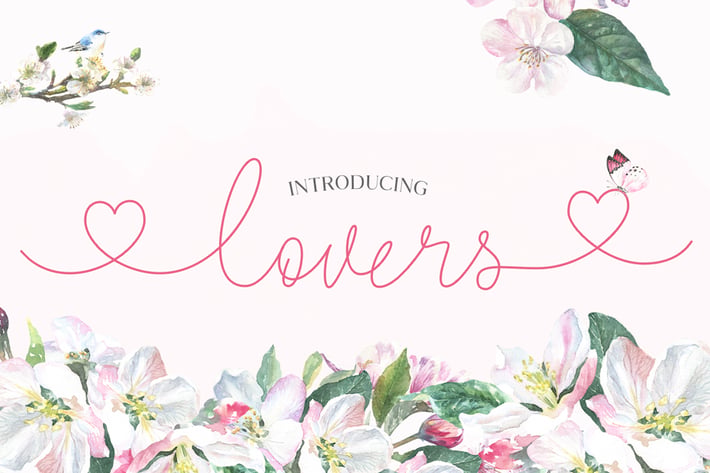
Lovers Script Font
Lovers - a collection of four fonts that combines perfectly for that match made in heaven! Use the initial and terminal hearts or use the combo variation to create a heart inbetween words! Perfect for wedding stationary or those secret love notes you keep sending your neighbor.